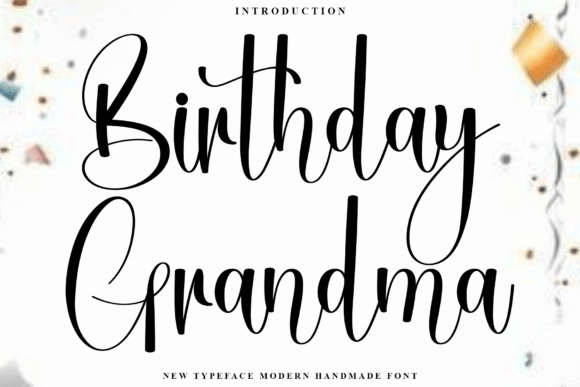
The Birth of a Perfect Font: A Grandma’s Warmth in Your Designs
I still remember the time I was working on a birthday invitation project for my niece’s party. I had all the elements ready – the cute illustrations, the vibrant colors, and the fun graphics – but something was missing. The font I was using just didn’t feel right; it was too formal, too stiff. I needed something that exuded warmth, friendliness, and a touch of playfulness. That’s when I stumbled upon the Birthday Grandma font, and it instantly became the perfect fit.
A Font that Feels Like a Warm Hug
Birthday Grandma is a casual and creative font that embodies the warmth and friendliness we all love. Its round, playful strokes create a relaxed and approachable feel, making it perfect for personal projects, invitations, and social media graphics. The font’s charming, hand-drawn aesthetic adds a fun and unique touch to any design, making it an excellent choice for designers, crafters, and creative hobbyists alike.
What I Love About Birthday Grandma ✨
• ✅ The font’s unique, hand-drawn aesthetic adds a personal touch to any design
• ✅ Its playful strokes and rounded edges create a warm and friendly feel
• ✅ Perfect for personal projects, invitations, and social media graphics
• ⚠️ Limited use in very formal or professional designs, as it may come across as too casual
• ⚠️ May not be the best fit for very long texts or paragraphs, as it can be a bit overwhelming
The Designer Inspiration Behind Birthday Grandma
The Birthday Grandma font was inspired by the warmth and love of grandmothers everywhere. The designer, who wanted to create a font that felt like a warm hug, drew inspiration from traditional handwriting and the imperfections that make it so charming. The result is a font that feels like a handwritten note from a loved one – personal, friendly, and full of love.
Q: What is the Birthday Grandma font best used for?
A: The Birthday Grandma font is perfect for personal projects, invitations, and social media graphics that require a warm and friendly feel.
Q: Is the Birthday Grandma font suitable for formal designs?
A: While the Birthday Grandma font is a beautiful and charming font, it may not be the best fit for very formal or professional designs, as it can come across as too casual.